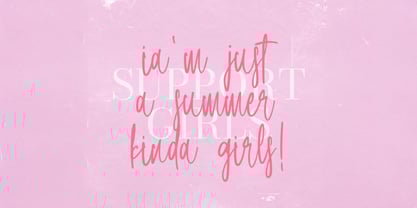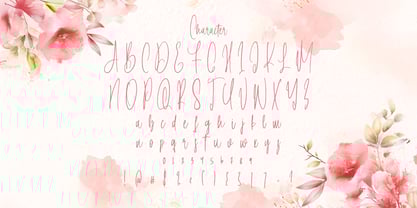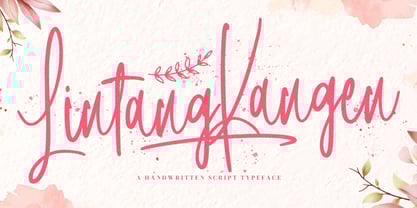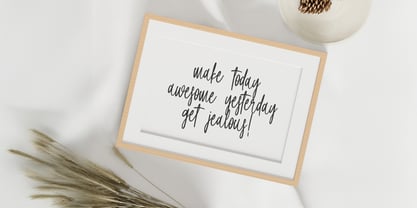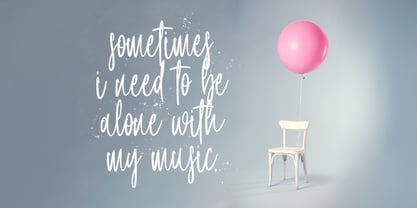
Lintang Kangen
by Stringlabs Creative Studio
The Lintang Kangen Font Family was designed by Virgiawan Listanto and published by Stringlabs Creative Studio. Lintang Kangen contains 1 styles. More about this family
Lintang Kangen is a heartfelt handwritten font that captures the feeling of personal touch and emotional expression. With its smooth strokes and gentle curves, it brings a natural, flowing style that feels intimate and sincere perfect for adding warmth to any design.
Designers: Virgiawan Listanto
Foundry: Stringlabs Creative Studio